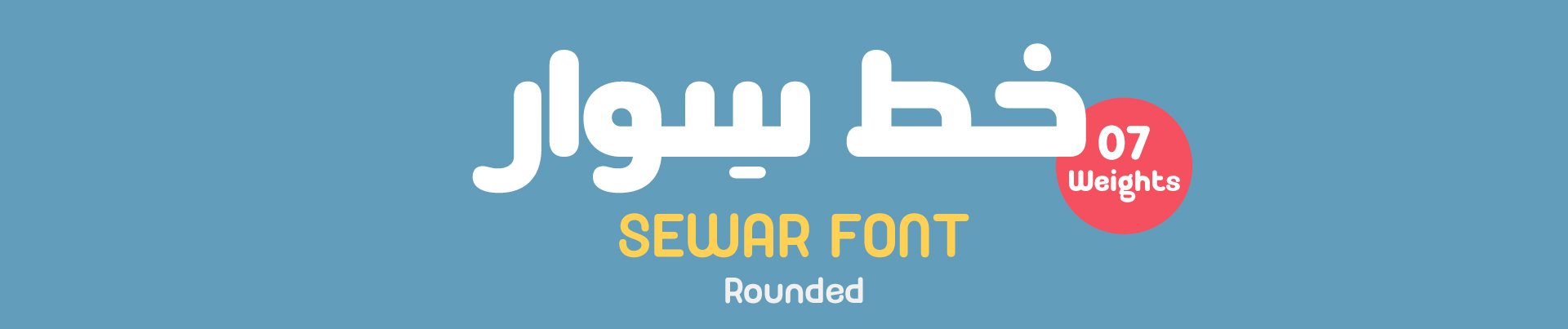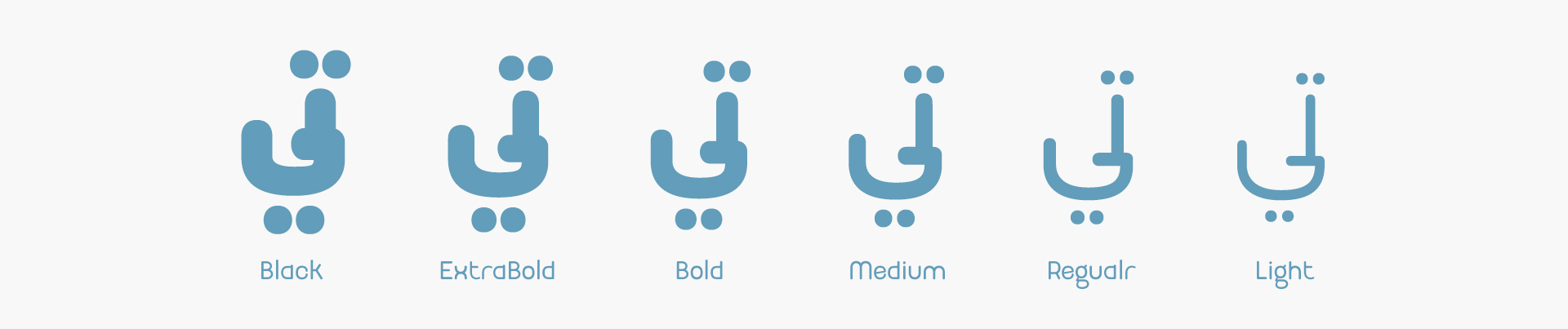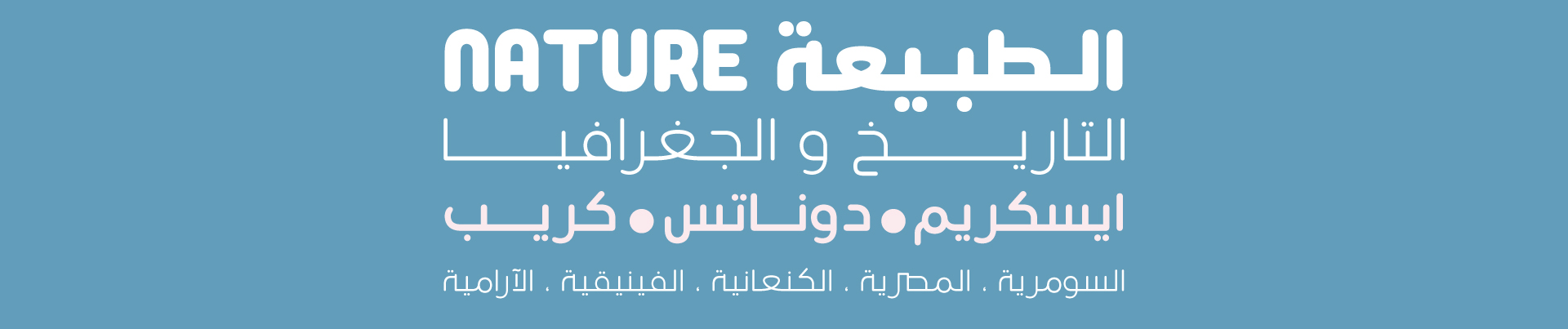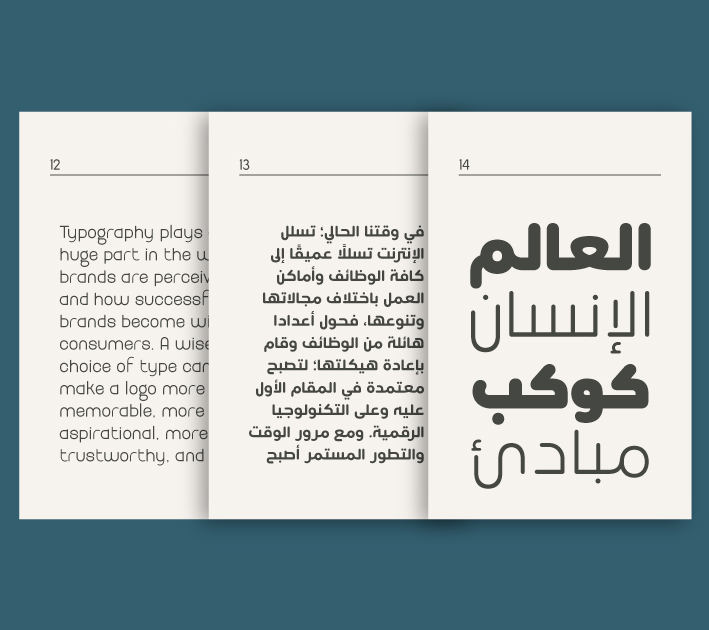
About Sewar Font
Introduction:
Due to the great demand for Rotger font, released on 13 May 2020, we decided to develop it and add new languages to meet the broader needs of our users.
Rotger is renamed to be “Sewar,” a soft, seamless, sans serif round-edged Arabic letter that is inspired by the Kufic script.
Weights and Languages:
Sewar consists of 7 weights. It supports Arabic and Latin.
Usage:
Sewar Font is used in headlines, texts, websites, social media posts, visual identities, and printing.